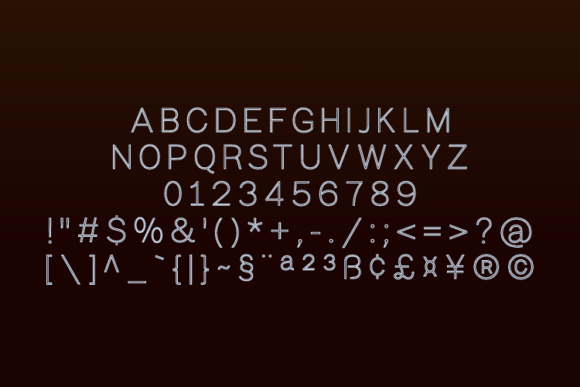
Introduction to Nextart Outline Extra Light Font
Imagine you’re working on a creative project, and you need a font that exudes elegance and sophistication. The right font can make all the difference in capturing the essence of your vision. As a designer, you know how crucial it is to have a versatile and high-quality design resource at your fingertips.
Enter the Nextart Outline Extra Light Font, a fancy, contemporary sans serif font that’s sure to elevate your design game. With its well-balanced weight distribution and carefully adjusted alternates and ligatures, this font delivers a touch of sophistication that’s hard to find. Whether you’re working on a project with a transparent background or a complex layout, the Nextart Outline Extra Light Font is a valuable asset that’s sure to make your designs stand out.
Key Features of Nextart Outline Extra Light Font
- Unique Outline Design: The Nextart Outline Extra Light Font offers a distinctive outline design that adds a creative touch to any project, making it a valuable design resource.
- Transparent Background: This font features a transparent background, allowing for seamless integration with any image or background, giving designers the flexibility to create visually appealing designs.
- High-Quality Font: With its high-quality design, the Nextart Outline Extra Light Font is perfect for creating stunning visual effects in various creative projects.
- Resolution: The font is designed to be scalable, with a resolution of 300 DPI, making it suitable for use in high-resolution designs.
- Size: The font comes in a range of sizes, from 12 to 72 points, providing designers with the flexibility to use it in various creative projects.
Honest Review: Nextart Outline Extra Light Font
As a designer, I’m always on the lookout for high-quality design resources to elevate my creative projects. The Nextart Outline Extra Light Font is one such find that has caught my attention. ✨
One of the standout features of this font is its transparent background, making it perfect for use on colored backgrounds or as a standalone design element. Additionally, it’s available for free download, which is a definite plus.
Here are some of the key features that work well with the Nextart Outline Extra Light Font:
- High-quality design: The font is crisp and clear, making it perfect for use in various design projects.
- Flexibility: Its transparent background makes it versatile and easy to use in different contexts.
However, there are some limitations to consider: ⚠️
- Limited font weight options: The font is only available in extra light weight, which may not be suitable for all design projects.
- No bold or italic variations: This may limit its use in certain contexts where bold or italic text is required.
Overall, the Nextart Outline Extra Light Font is a solid addition to any designer’s toolkit. While it may have some limitations, its high-quality design and transparent background make it a valuable resource for creative projects.
The Nextart Outline Extra Light Font is a versatile and high-quality design resource ideal for creative projects. Its unique outline style and transparent background make it perfect for adding a touch of elegance to your designs.
To get the most out of the Nextart Outline Extra Light Font, experiment with different font sizes, colors, and combinations to create visually appealing designs.
The Nextart Outline Extra Light Font is perfect for:
- Creating elegant invitations and greeting cards.
- Designing stylish logos and branding materials.
- Adding a touch of sophistication to your social media graphics.